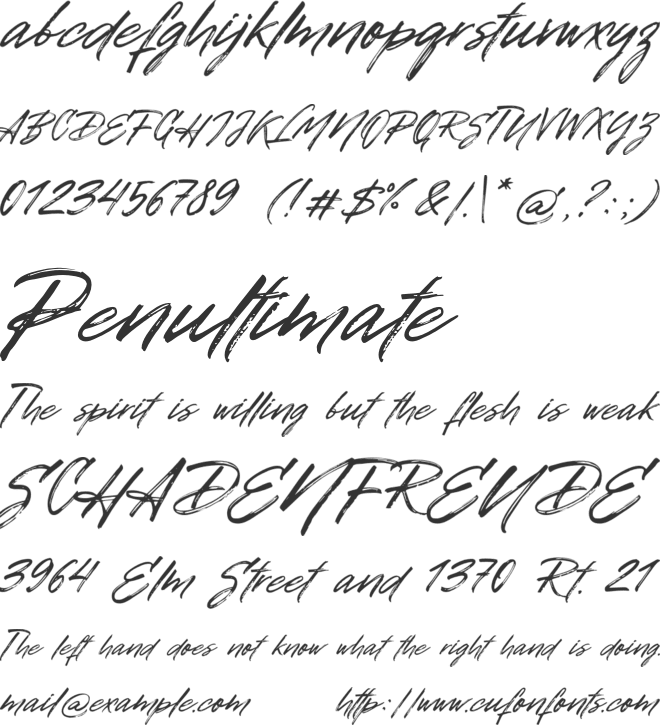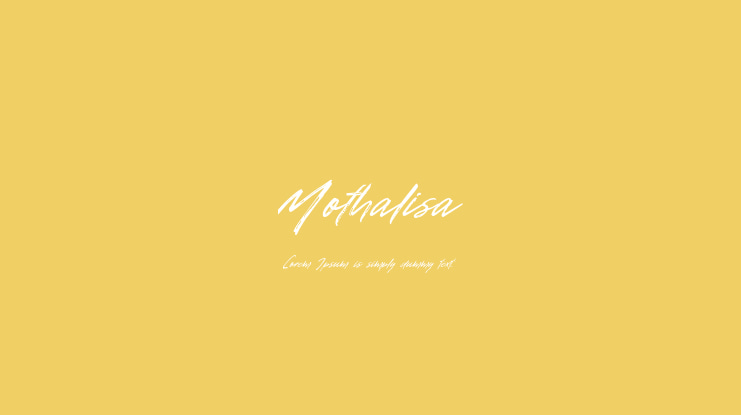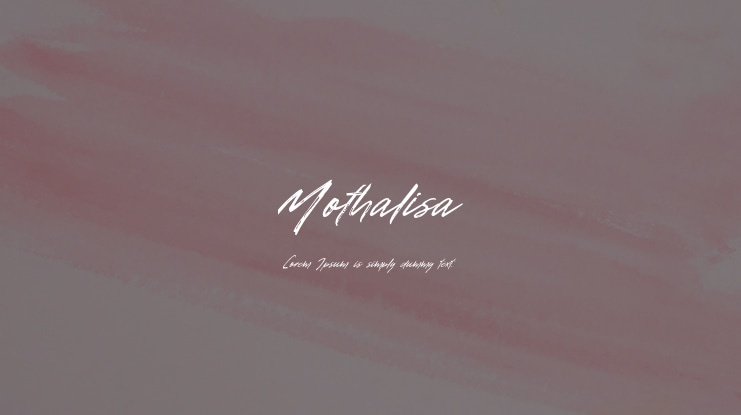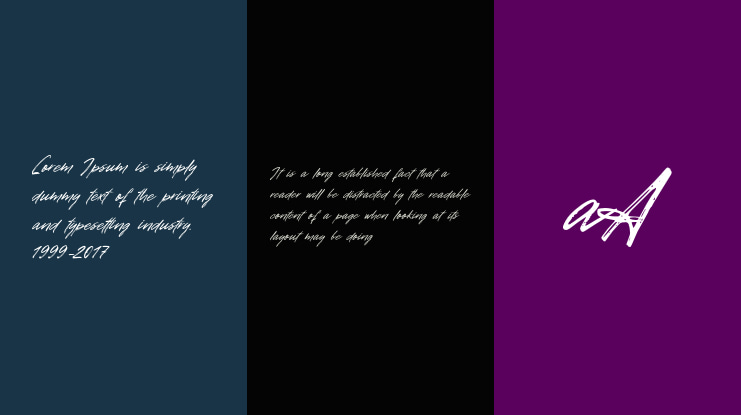
Mothalisa Font
Mothalisa Handwritten Font is a captivating blend of elegance and personality, inspired by the fluid strokes of an artist’s pen. Its delicate curves and subtle imperfections mimic the charm of authentic handwritten notes, making it perfect for adding a personal touch to invitations, branding, or creative projects. Mothalisa balances sophistication with approachability, featuring smooth letterforms and well-spaced characters that ensure readability without compromising on style. Whether you’re crafting a heartfelt letter or designing a modern logo, Mothalisa brings a sense of warmth and individuality to every word.